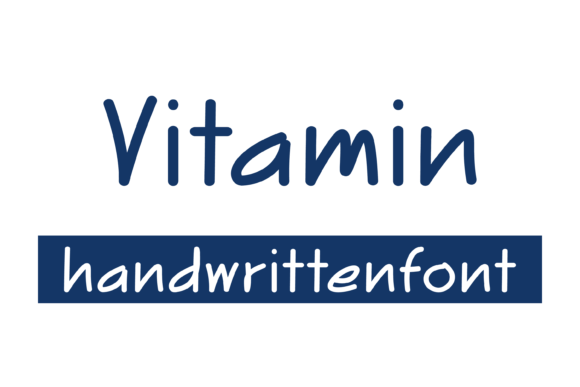
Looking for the perfect font to add a touch of personality and creativity to your designs? Look no further than Vitamin Font! Created by the talented designers at Woracado, this script font is the ultimate choice for anyone seeking the best font for magazine design.
With its playful and whimsical style, Vitamin Font is the ideal way to inject a bit of fun and personality into your projects. Whether you're designing logos, wedding invitations, advertisements, or anything in between, this font will help you stand out from the crowd and make a lasting impression.
What sets Vitamin Font apart from other script fonts is its simplicity and friendliness. This handwritten font is easy to read and understand, while still retaining a unique and distinctive character that will capture your audience's attention. It's the perfect balance between creativity and clarity, making it a must-have for any designer.